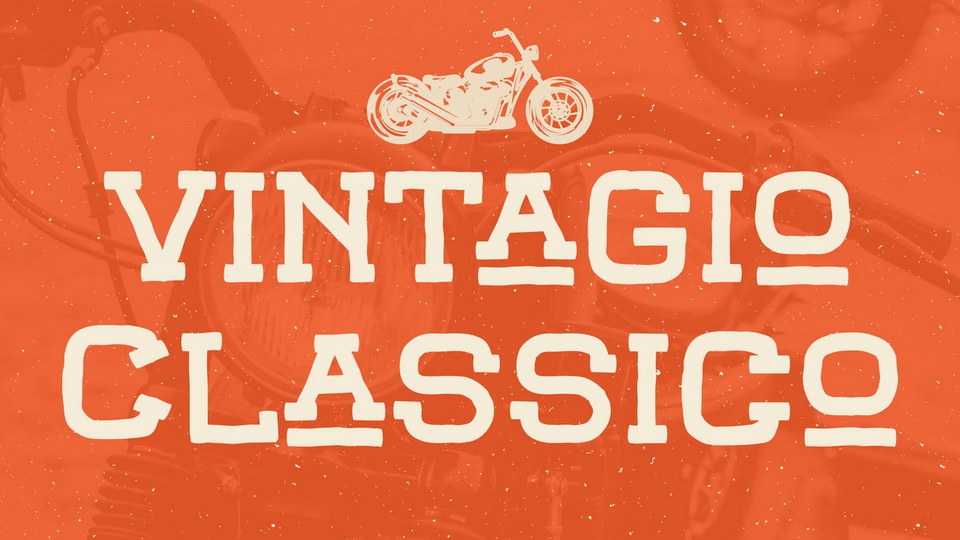
Download Vintagio Classico font, a vintage serif font with a hand-drawn look. Rough and vintage feel will make Vintagio Classico emphasize the old rebel passion and adventure rage on every word you put on the screen.